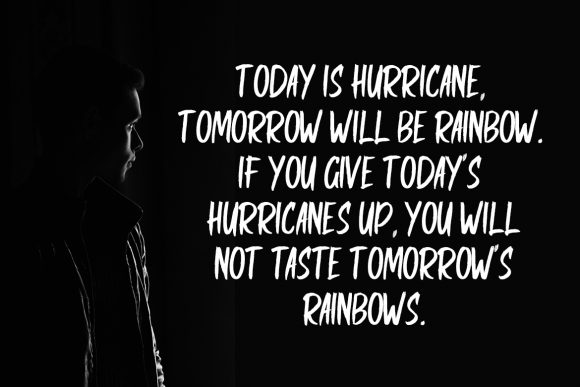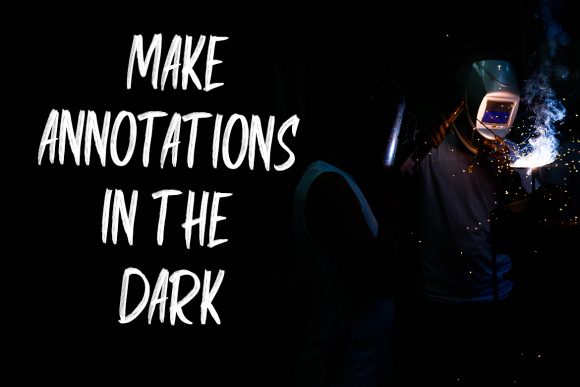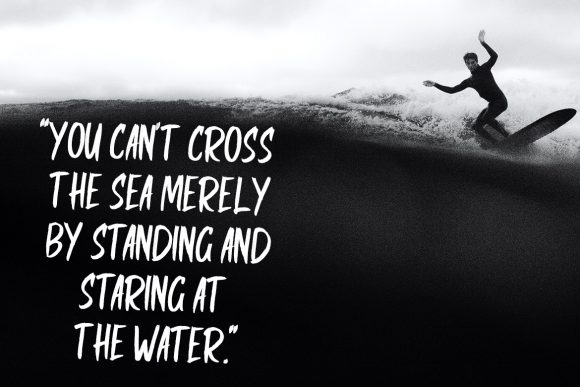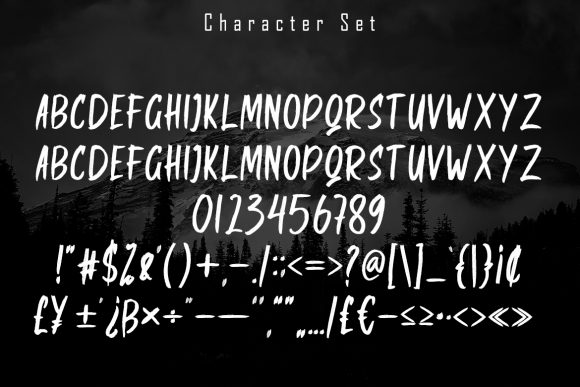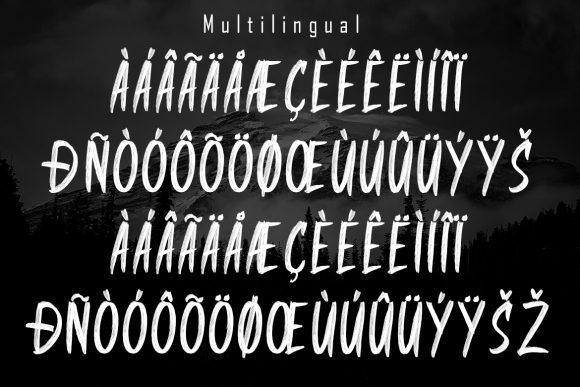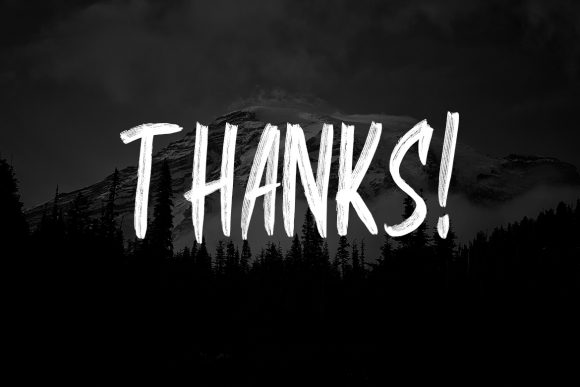
Introduction to Honors Font
Honors is a cool, thick lettered, brushed display font.
It will look stunning on any poster flyer or print Use this font for your designs and explore its endless possibilities.
Key Features of Honors Font
Honors Font offers exceptional quality and versatility, making it a valuable addition to your design toolkit. Whether you’re creating for personal projects or commercial use, Honors Font delivers professional results.